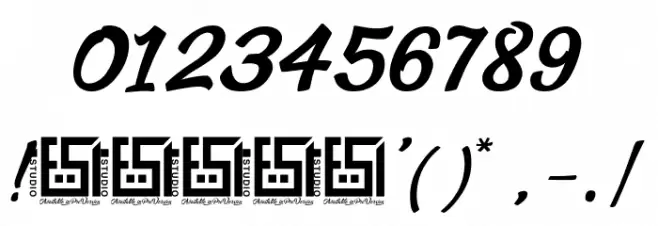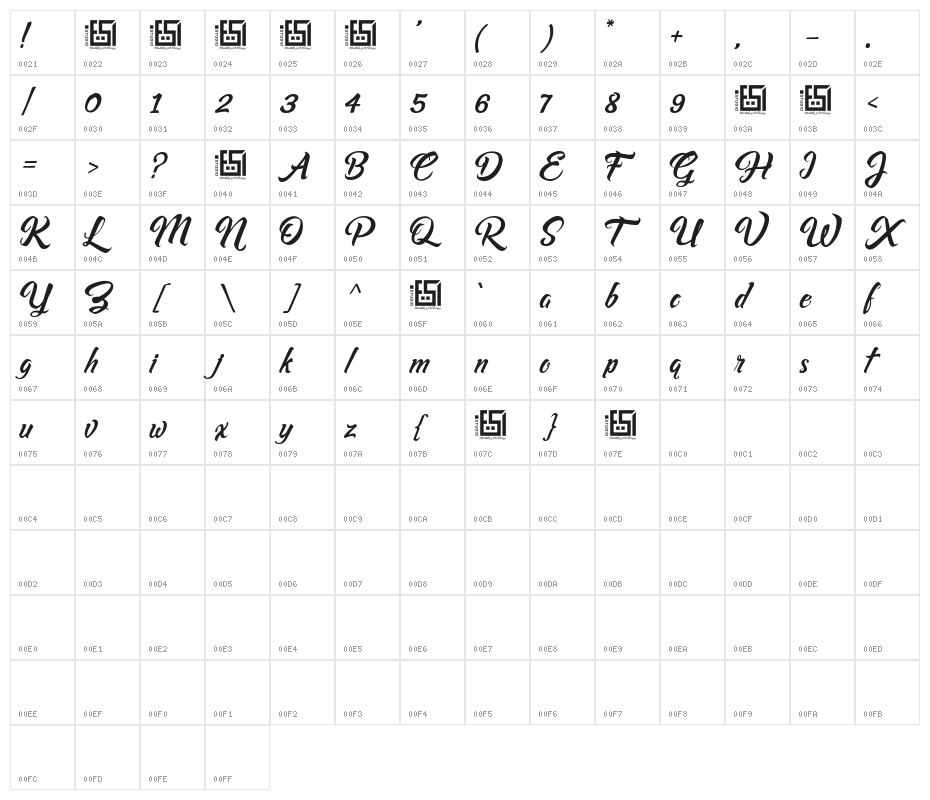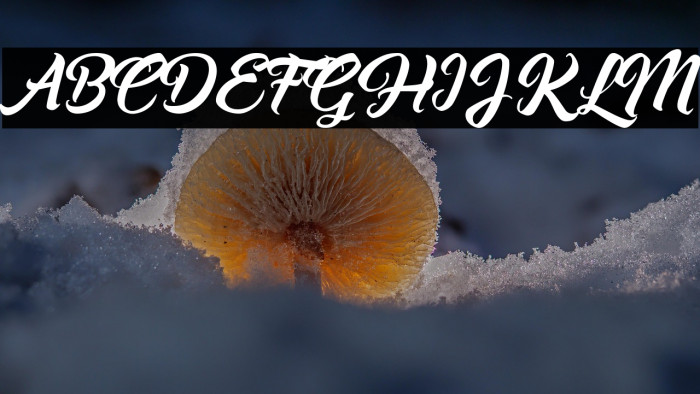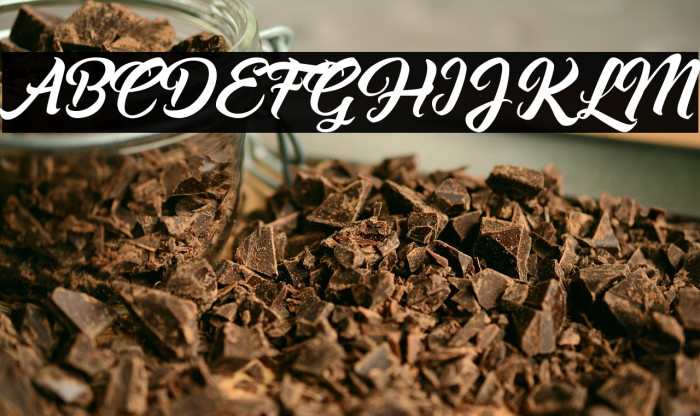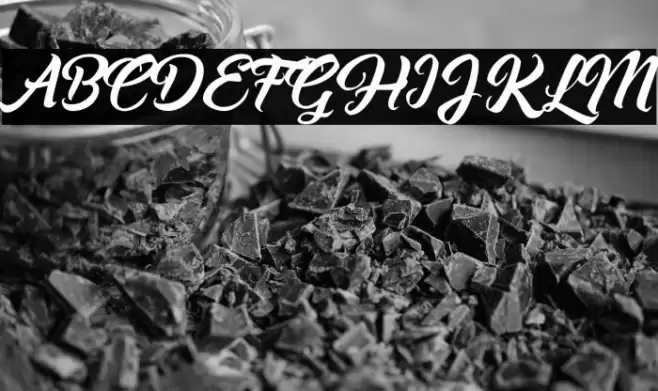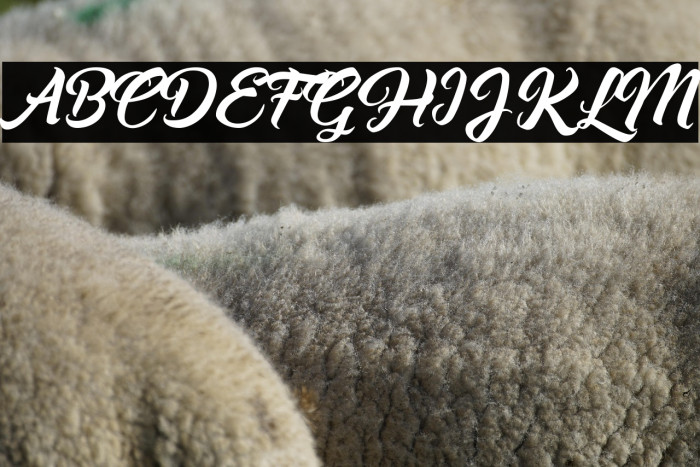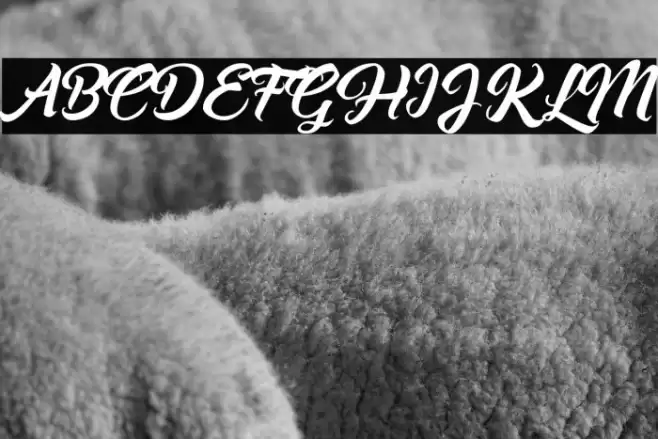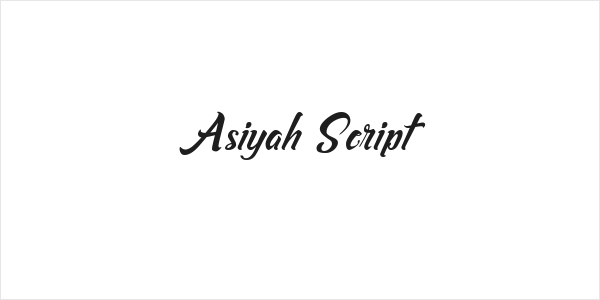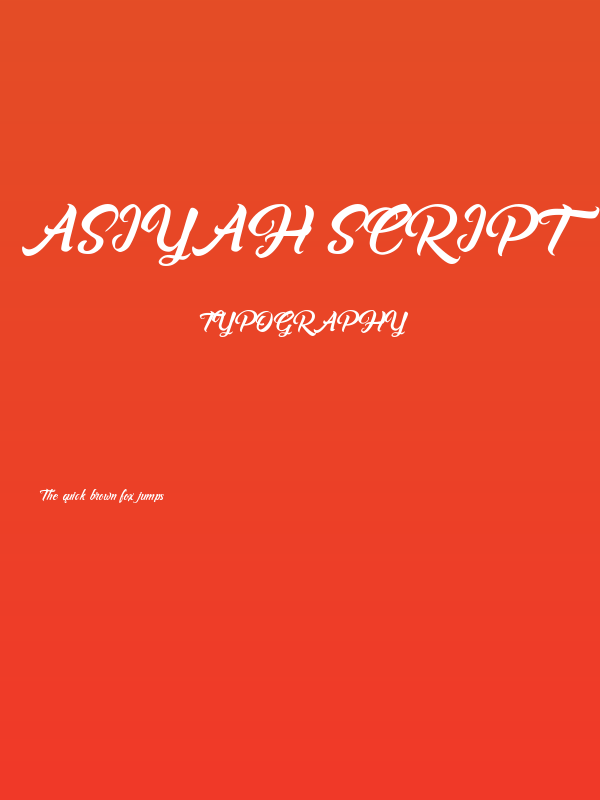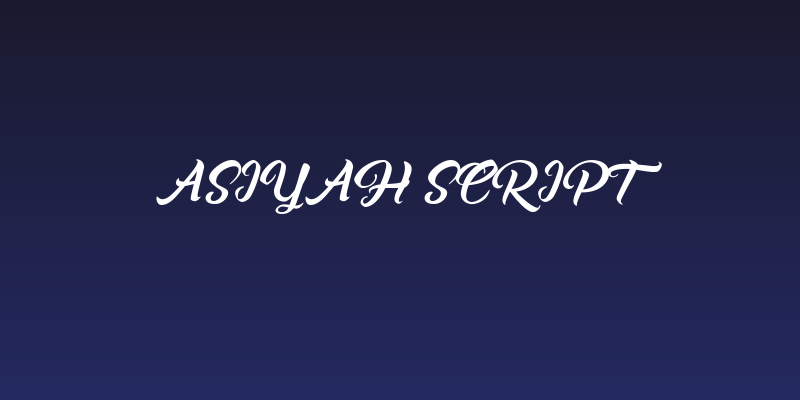
Asiyah Script Font
Asiyah Script Description
This elegant script font features a flowing, cursive style with a classic and sophisticated appearance. The uppercase letters are ornate with sweeping curves, while the lowercase letters maintain a smooth and connected flow, enhancing readability. The numbers are consistent with the script style, offering a cohesive look throughout. Special characters are designed to complement the overall aesthetic, making this font suitable for decorative purposes. Its graceful strokes and balanced proportions make it ideal for projects that require a touch of elegance and refinement.
| Proposed Projects | Ideal for wedding invitations, elegant branding, greeting cards, and decorative signage. |